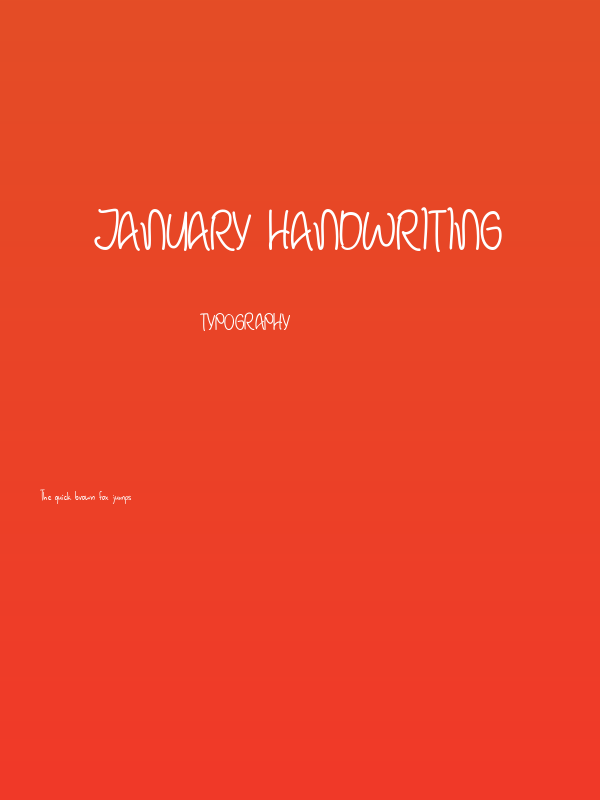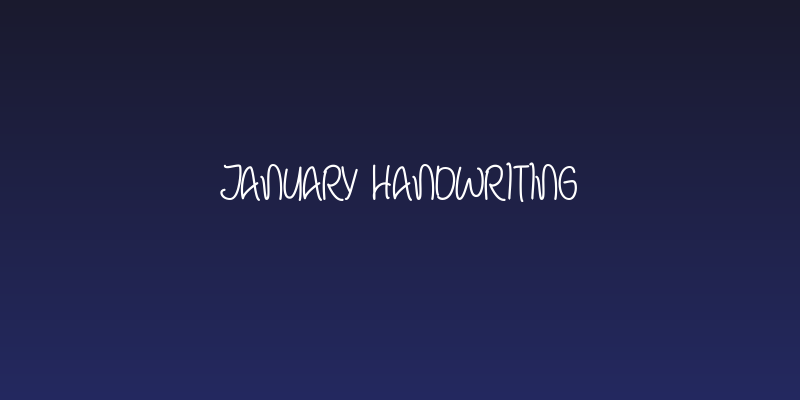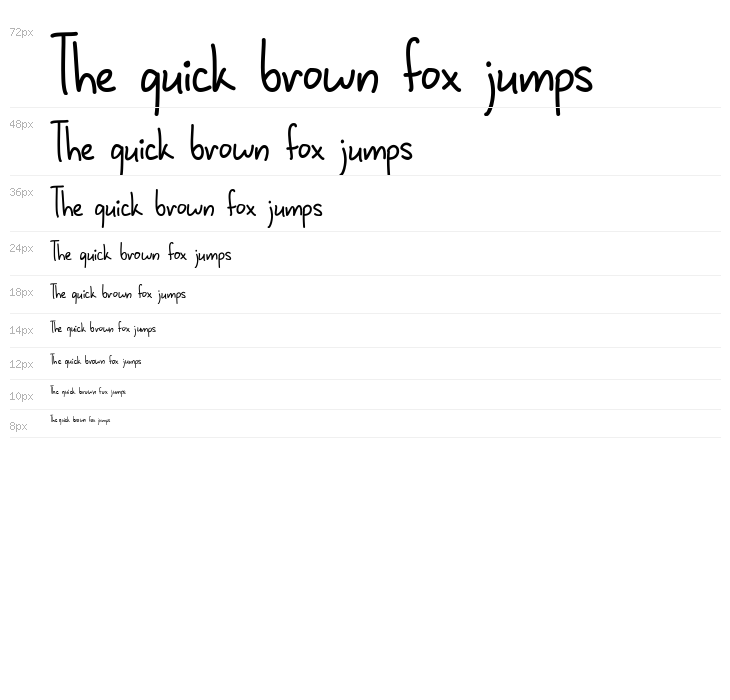
January Handwriting Font
| Stil general | Casual, Playful |
| Caz de utilizare | Headlines, Informal text, Personal projects |
| Proiecte propuse | Ideal for greeting cards, personal notes, invitations, and informal branding projects. |